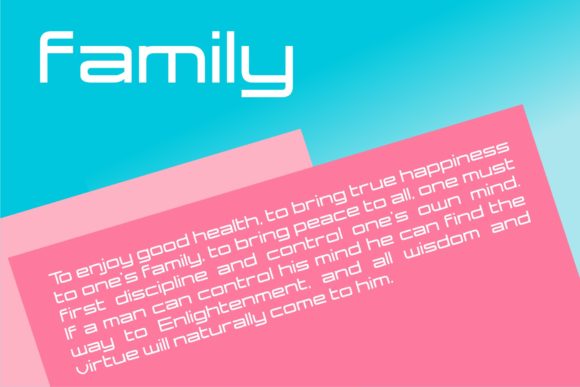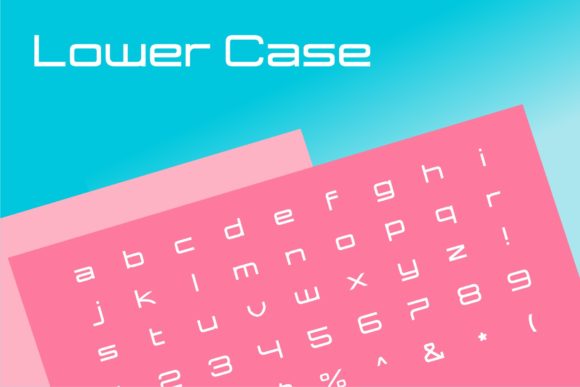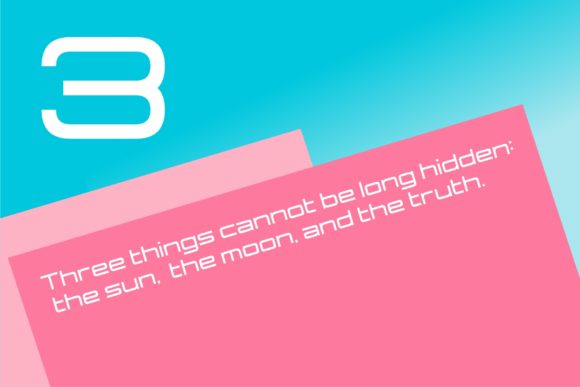
Unlock the Power of Master Tagline Font
Have you ever stared at a blank canvas, unsure of where to start your next creative project? The blank page can be daunting, but what if you had the perfect font to spark your imagination? Introducing the Master Tagline Font, a sweet and fun display font that will turn any design project into a true standout.
As a designer, you’re always on the lookout for high-quality design resources that will elevate your work and help you stand out from the crowd. The Master Tagline Font is a valuable addition to your design arsenal, offering a unique and eye-catching look that’s perfect for a variety of applications, from social media graphics to web design.
Key Features of Master Tagline Font
- High-quality design resource with a modern and creative touch, perfect for various creative projects.
- Comes in 5 unique styles with transparent background options for a seamless integration into your designs.
- Each style is carefully crafted with attention to detail, ensuring a professional and polished look for your designs.
- Perfect for use in logos, headings, and other design elements where a bold and eye-catching font is required.
Honest Review: Master Tagline Font
I recently had the chance to work with the Master Tagline Font, and I have to say it’s a solid addition to any design resource. As a designer, I’m always on the lookout for high quality fonts that can elevate my creative project and give it that extra oomph.
The Master Tagline Font does just that. It’s a beautiful, modern font that’s perfect for creating eye-catching headlines and taglines. One of the things that really stands out about this font is its transparent background, which makes it incredibly versatile and easy to work with.
- High quality design that’s perfect for creative projects
- Modern and sleek aesthetic
However, I did encounter a few limitations with the Master Tagline Font.
- ⚠️ Limited character set, which may not be suitable for longer text
- ⚠️ Not ideal for small font sizes, as it can become difficult to read
Overall, I’d say the Master Tagline Font is a great design resource that’s definitely worth checking out. Just be aware of its limitations, and use it accordingly.
The Master Tagline Font is a high-quality design resource that can be used for a variety of creative projects. It’s perfect for creating logos, business cards, and other marketing materials. To get the most out of it, use it in conjunction with other design elements, such as images and graphics. Some common use cases include:
- Creating a professional logo for your business
- Designing a brochure or flyer
- Creating a social media post or advertisement